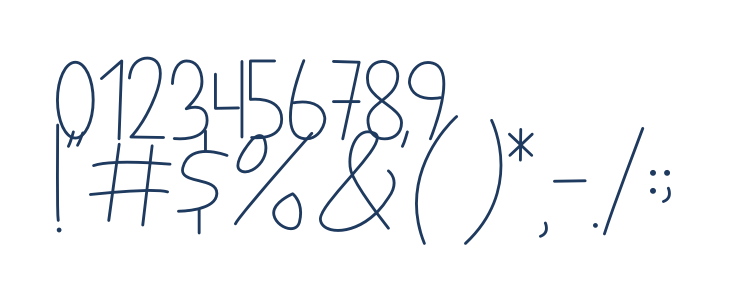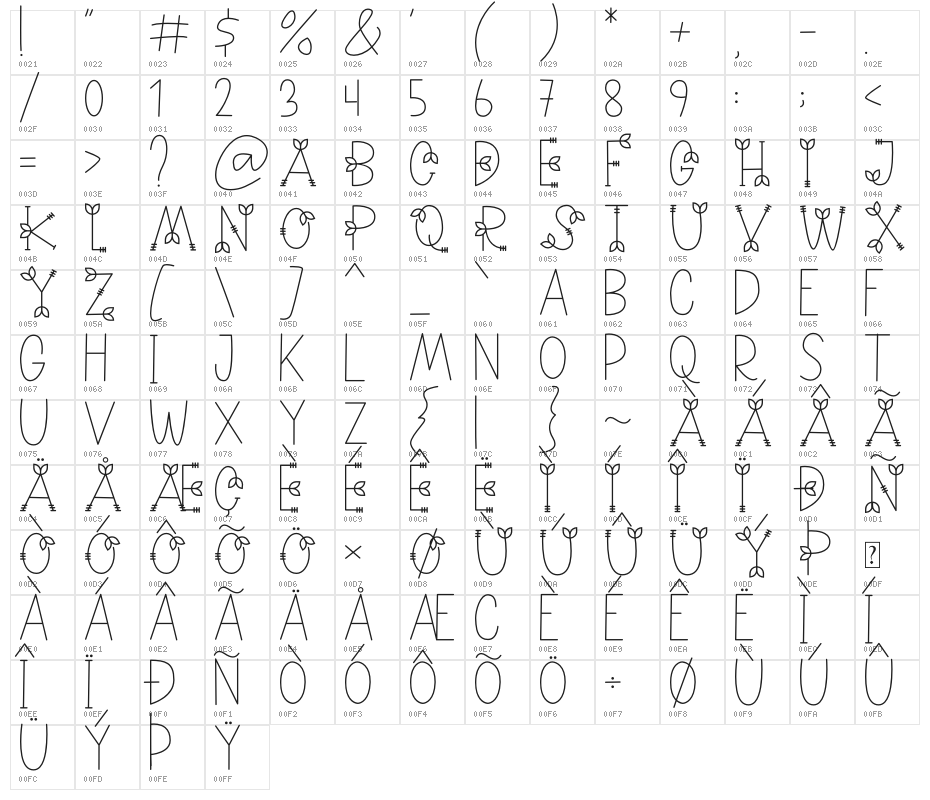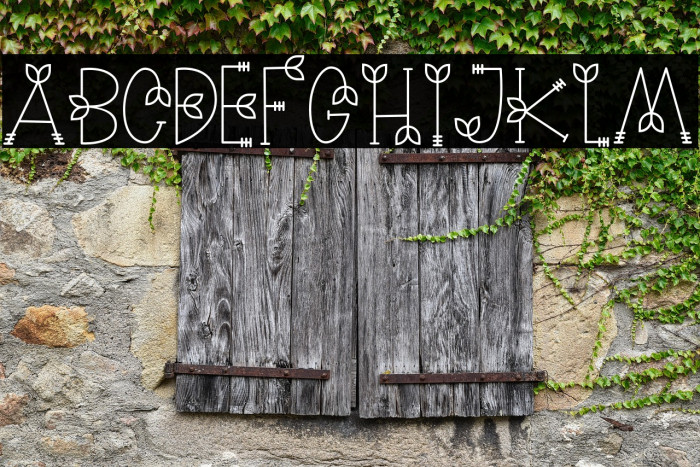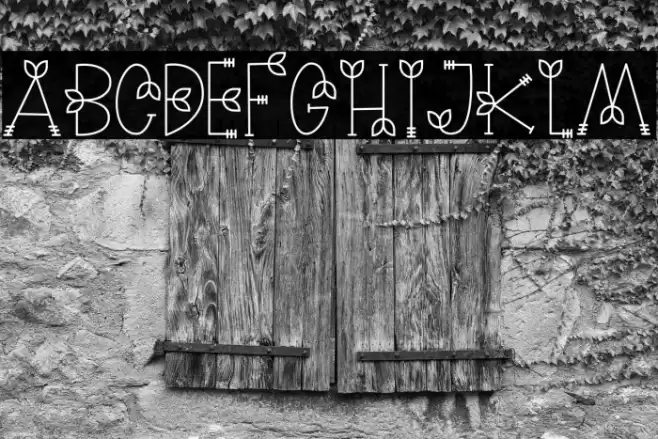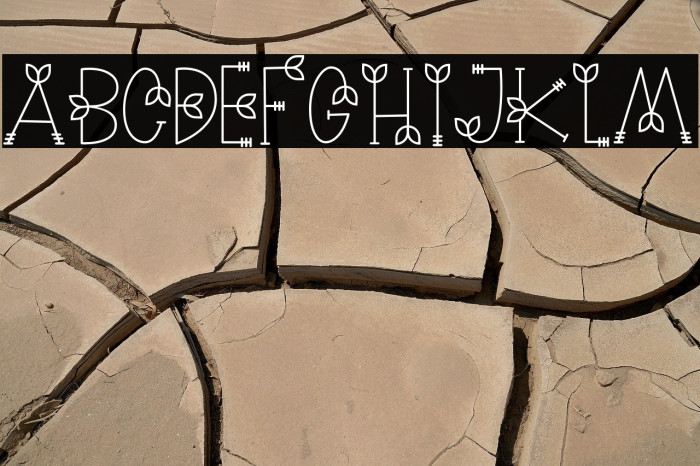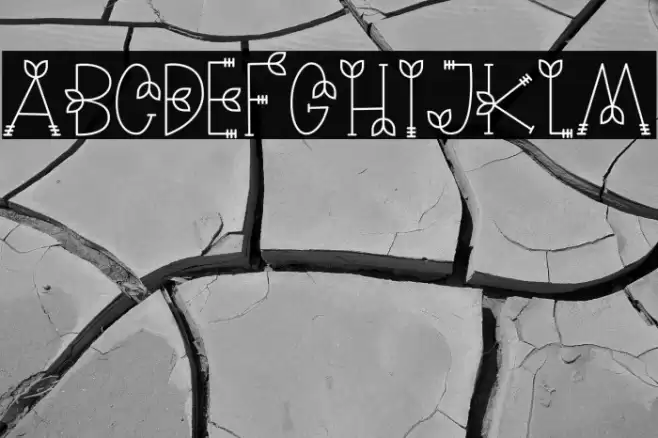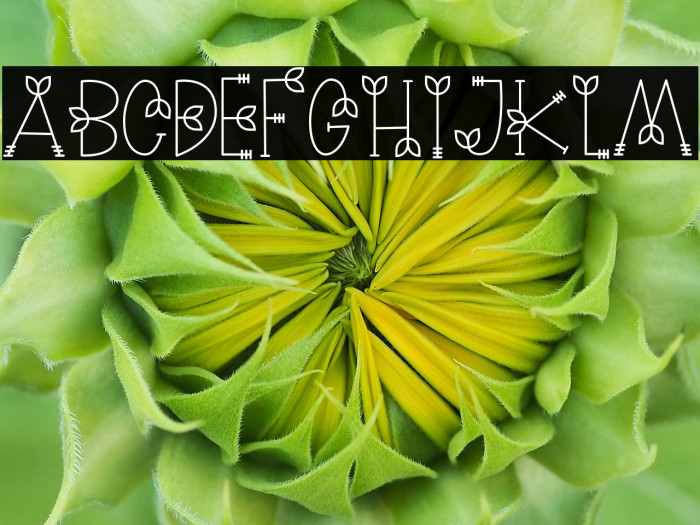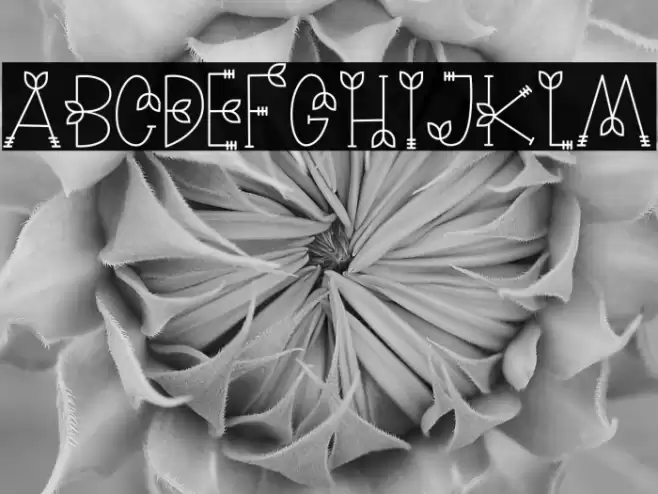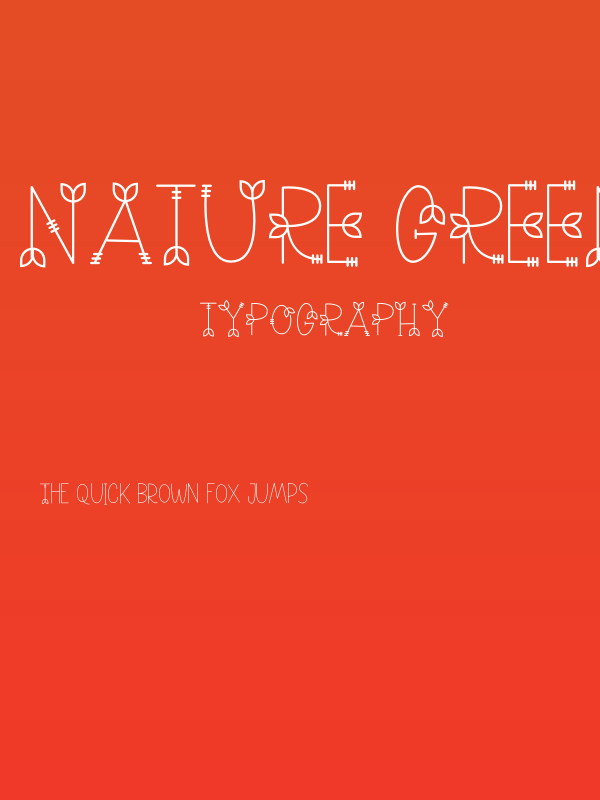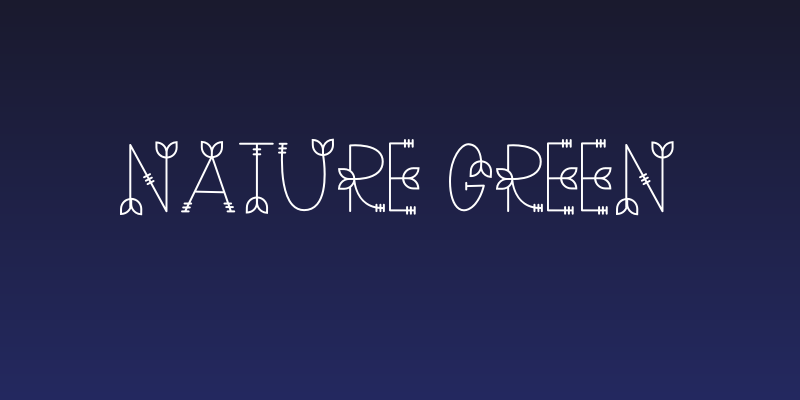
NATURE green Font
NATURE green Description
This font features a playful and decorative style with a nature-inspired theme. The uppercase letters are adorned with leaf-like embellishments, giving them a whimsical and organic appearance. The lowercase letters and numbers maintain a clean, handwritten look, offering a nice contrast to the decorative uppercase. The font is characterized by its thin strokes and tall, narrow proportions, which add elegance and a touch of sophistication. The special characters are creatively integrated, maintaining the overall theme. This font is ideal for projects that seek to convey a sense of nature, creativity, and playfulness.
| Proposed Projects | Ideal for eco-friendly branding, children's books, nature-themed invitations, and creative posters. |